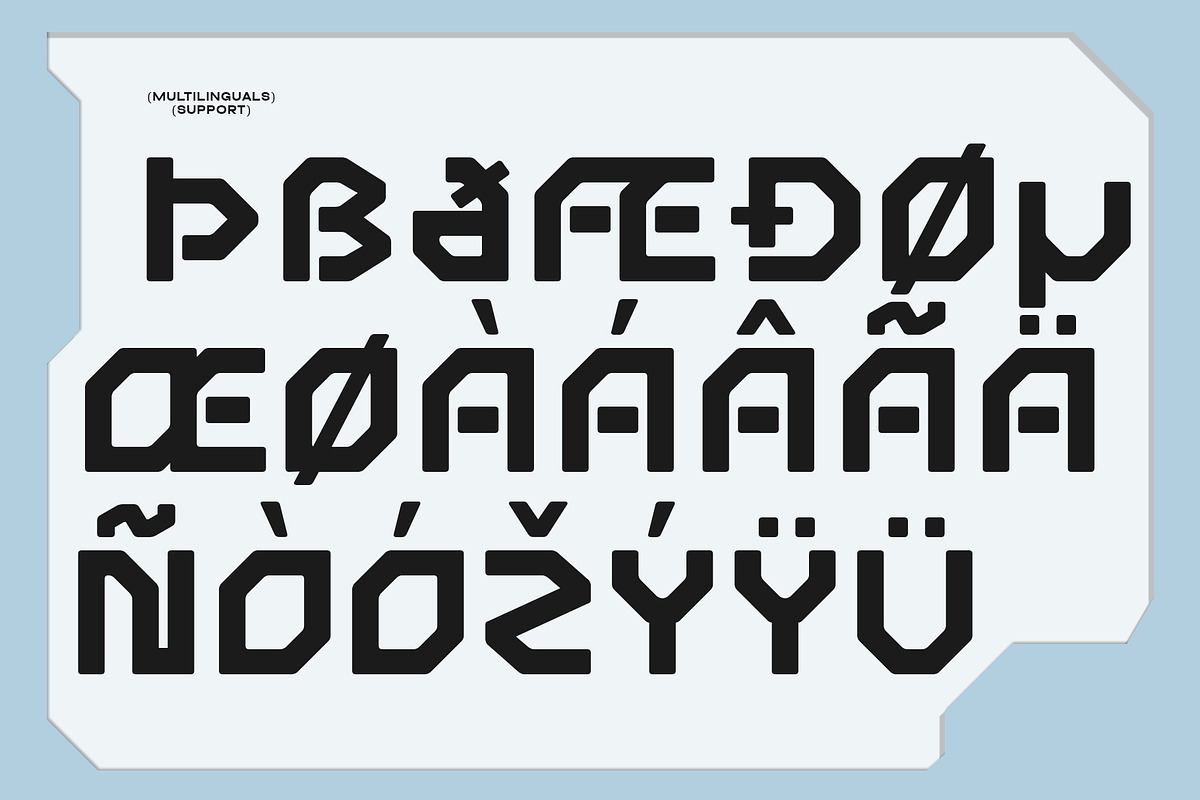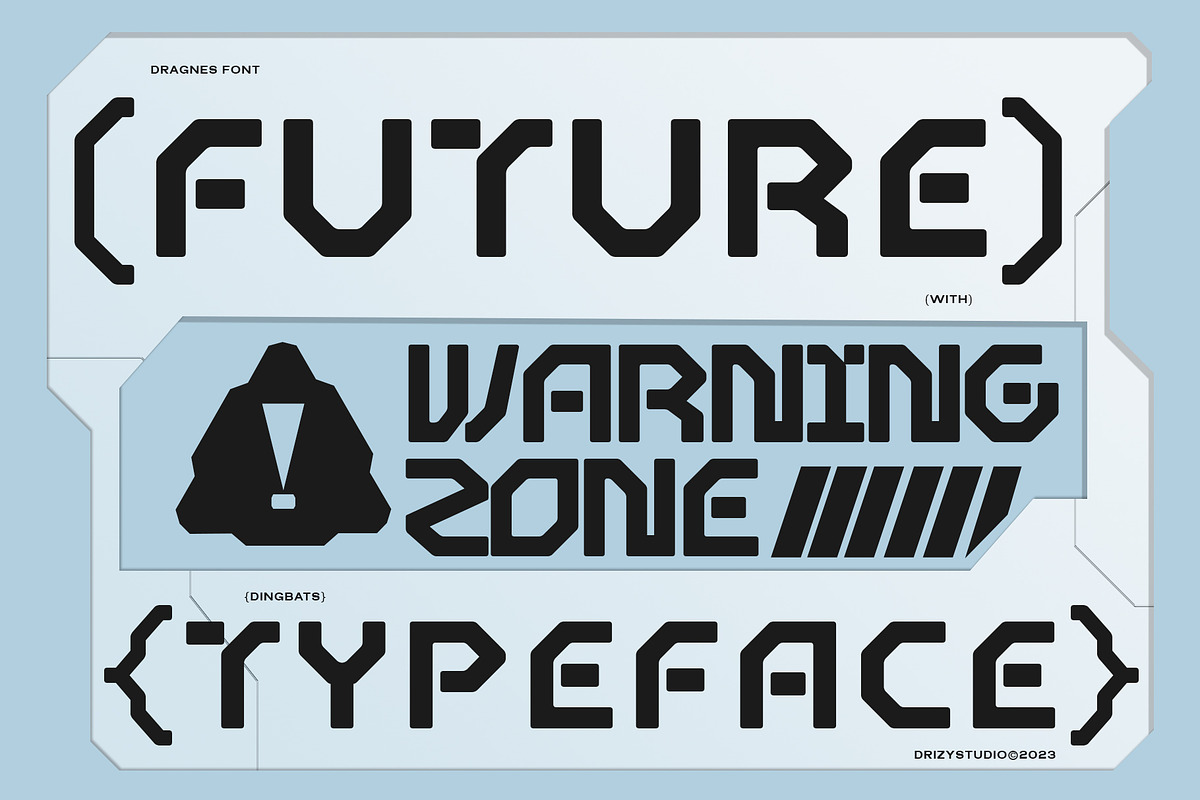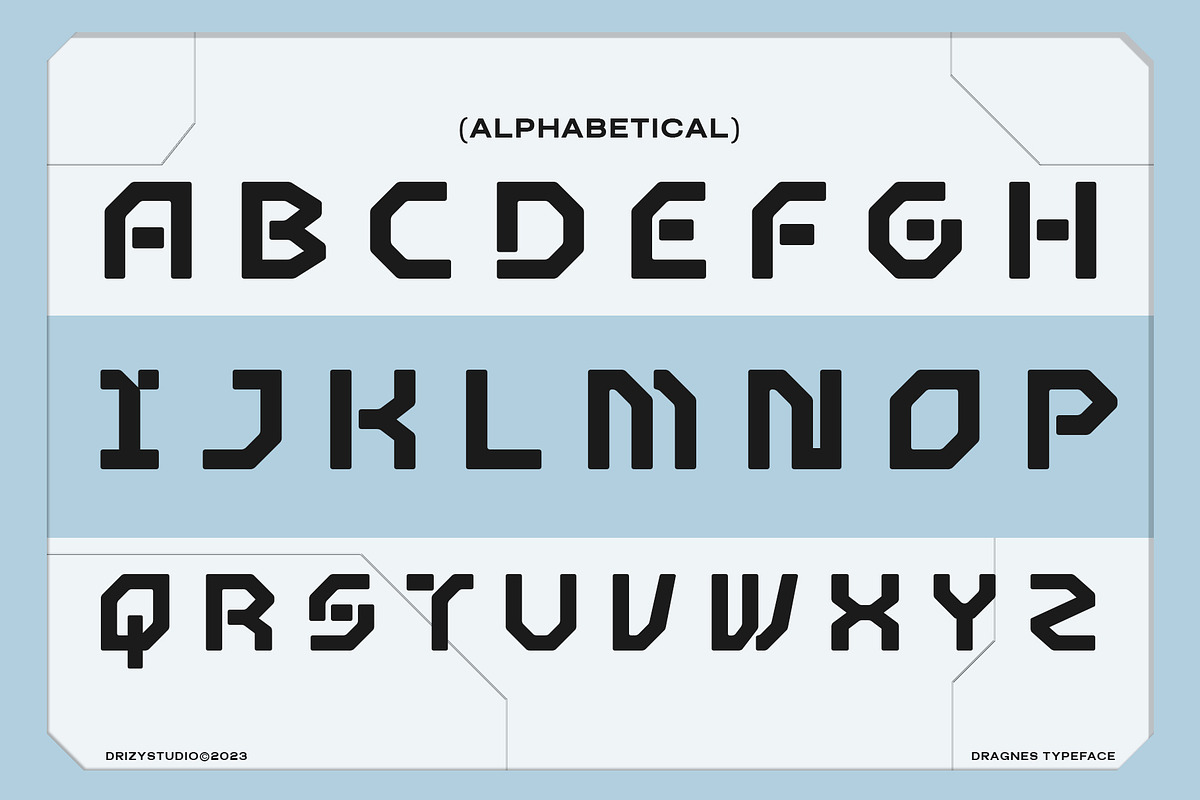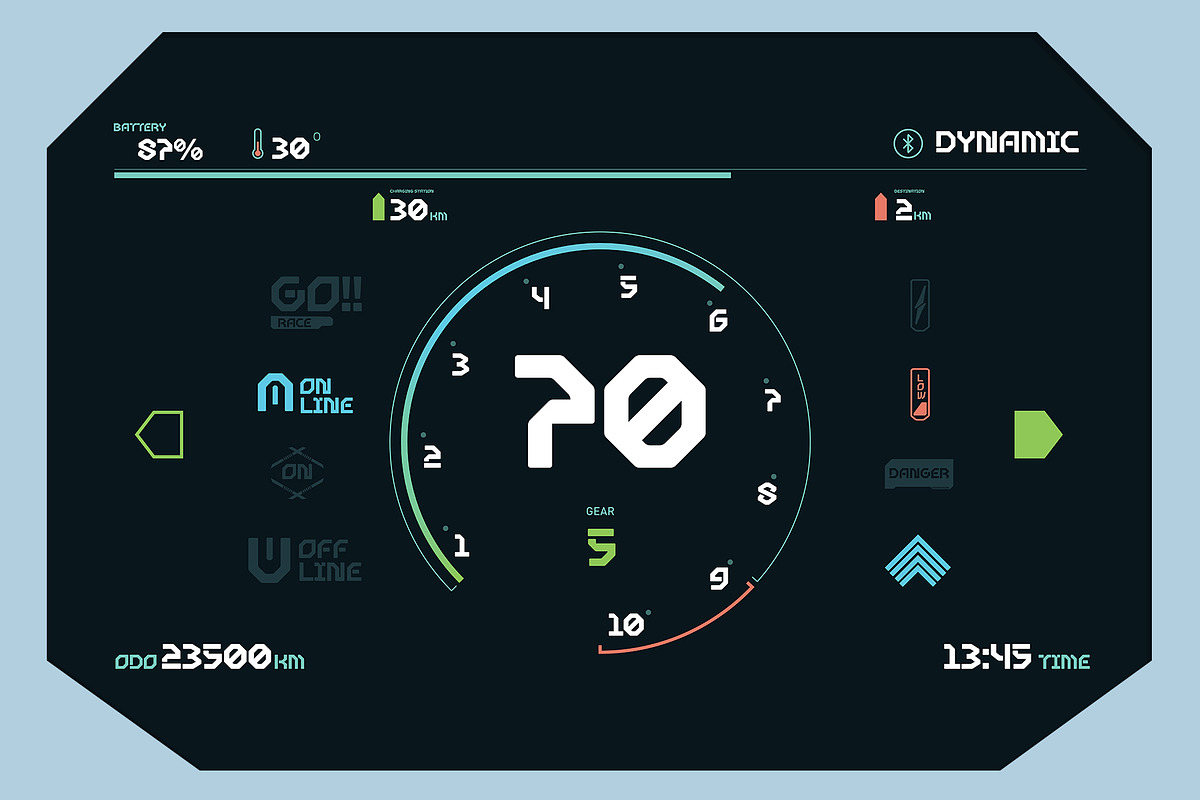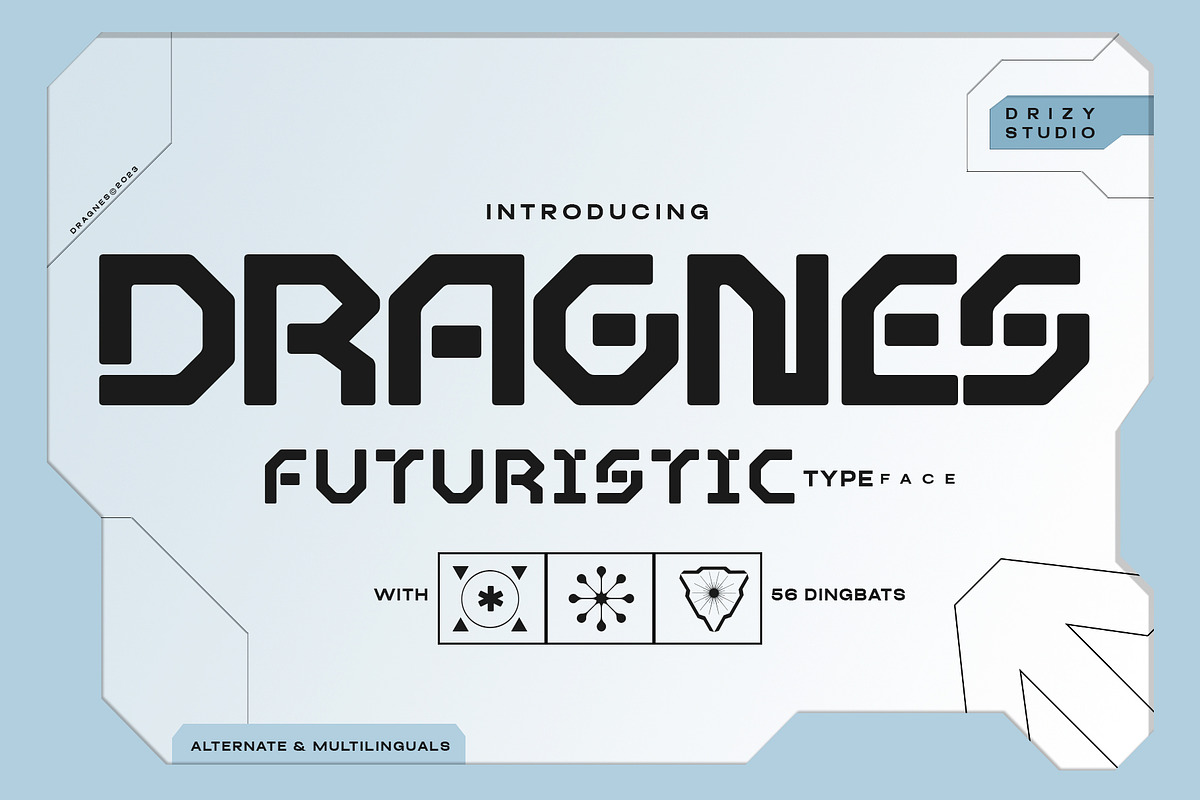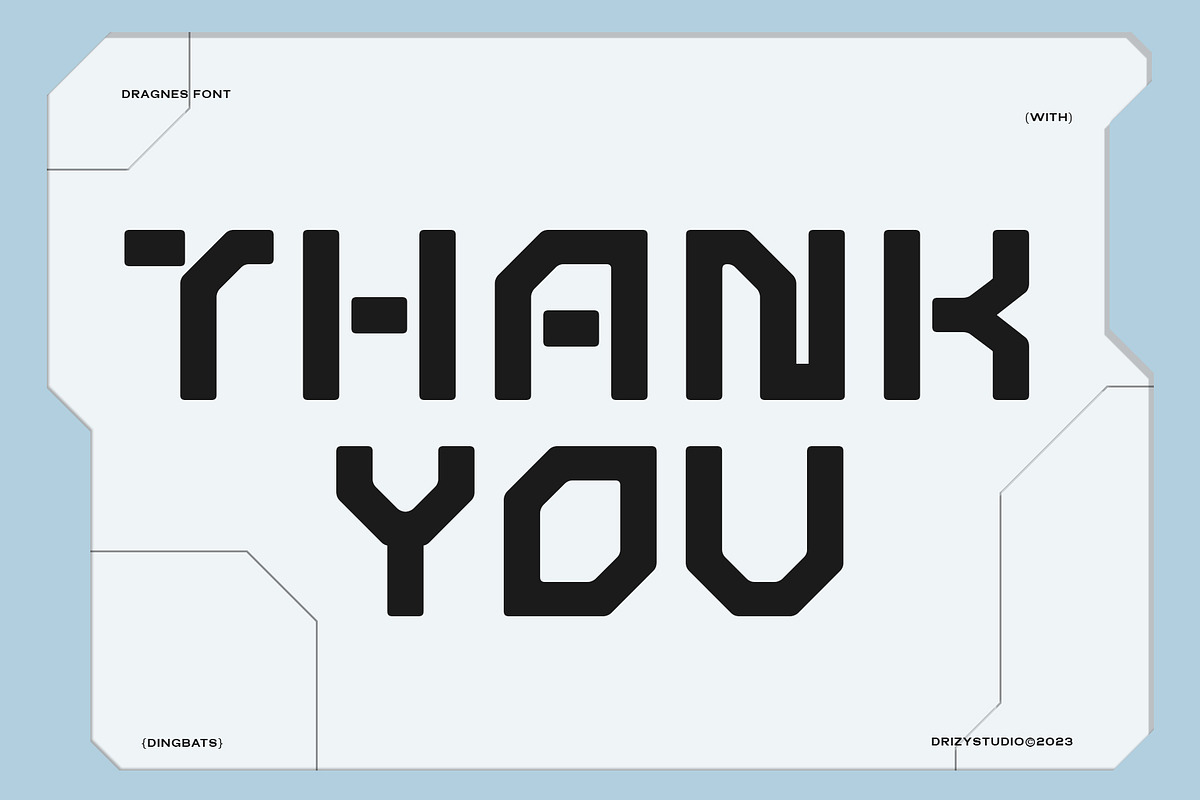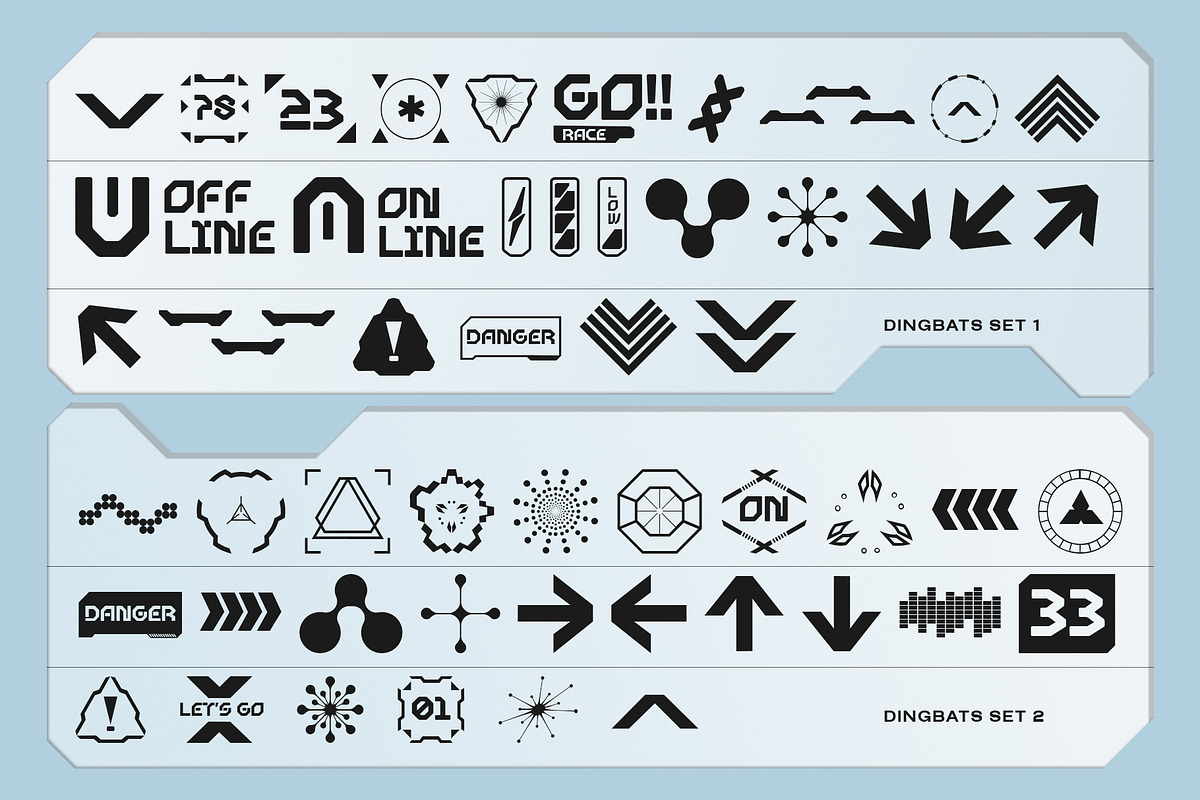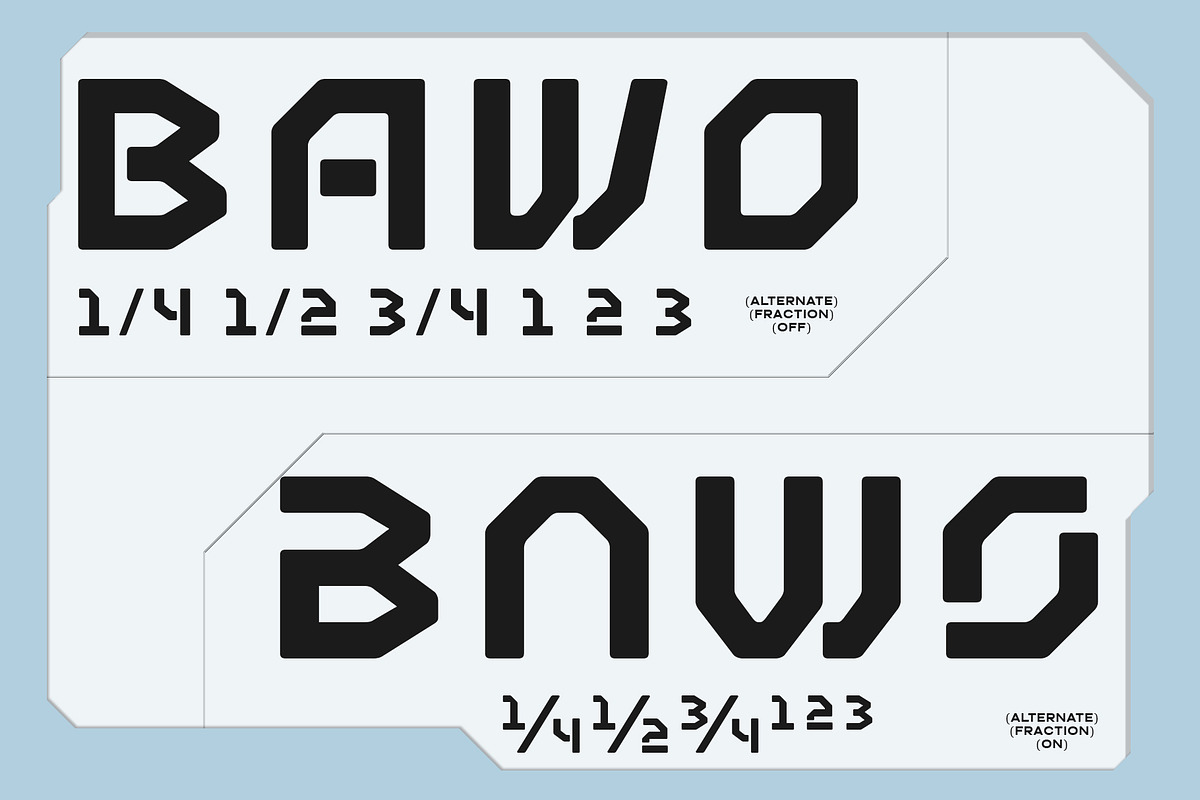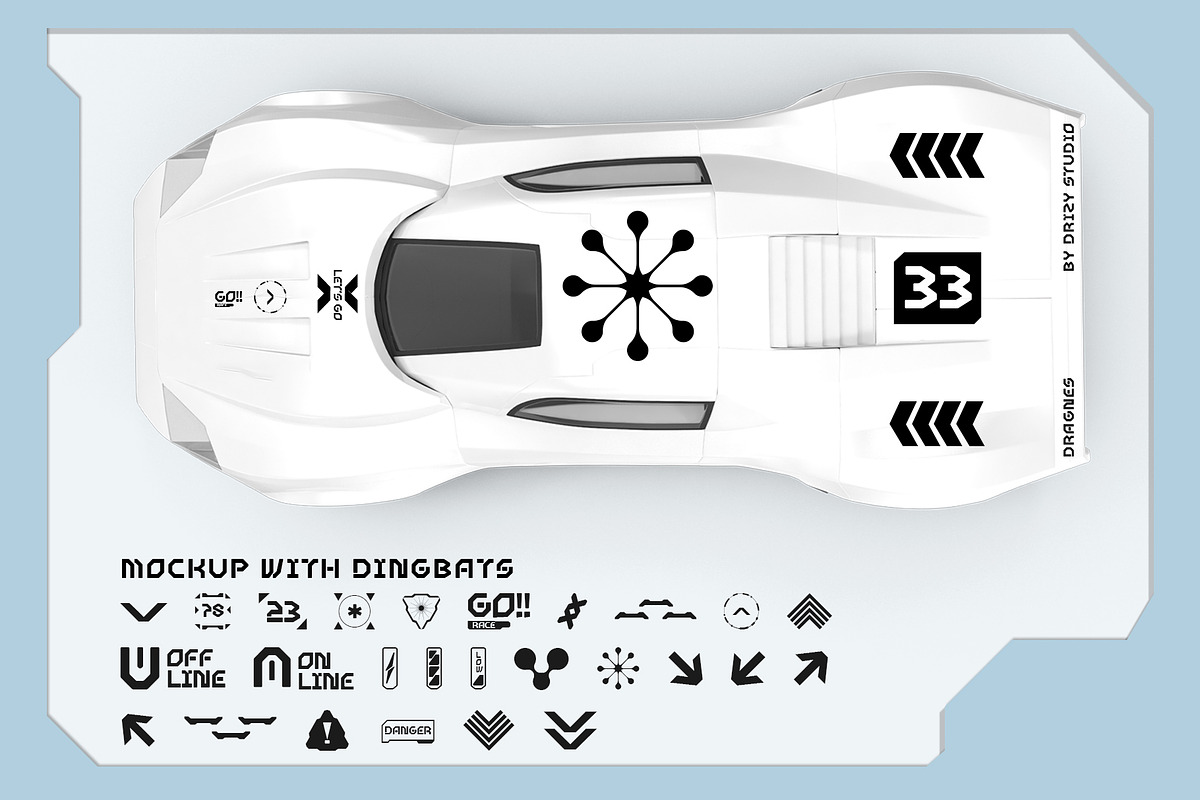
Dragnes - Futuristic Sci-fi Font
Welcome to the future of typography with Dragnes, a striking and innovative Futuristic Sci-fi Font that pushes the boundaries of design. Dragnes embodies the essence of science fiction, bringing a sleek, high-tech, and otherworldly vibe to your creative projects. Whether you're designing for a sci-fi book cover, movie poster, video game, or any project that requires a touch of the future, Dragnes will complete your project well.
Dragnes features: Character Set Digibats Punctuation & Numbers Multilingual Support Alternate